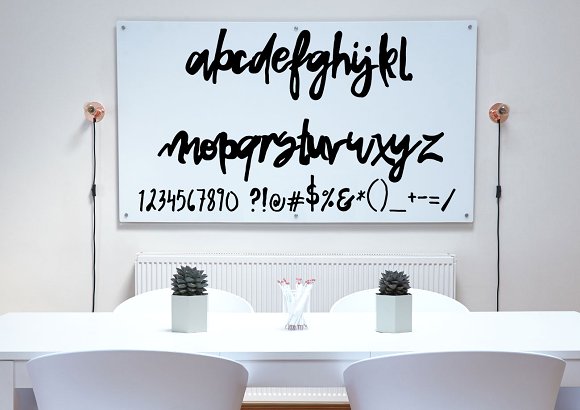
Snap Dragon Script Font
Introducing Snap Dragon Script Font! Snap Dragon designed by XXICREATIVE, this is a premium font, are sold on creativemarket, but it was great, it is free today for download. This font is a wonderful touch to add to any project, whether it be a note card of a quote over an awesome landscape photo, use this font to bring more life to your designs. What you get: Uppercase, Lowercase, Numbers, Punctuation.